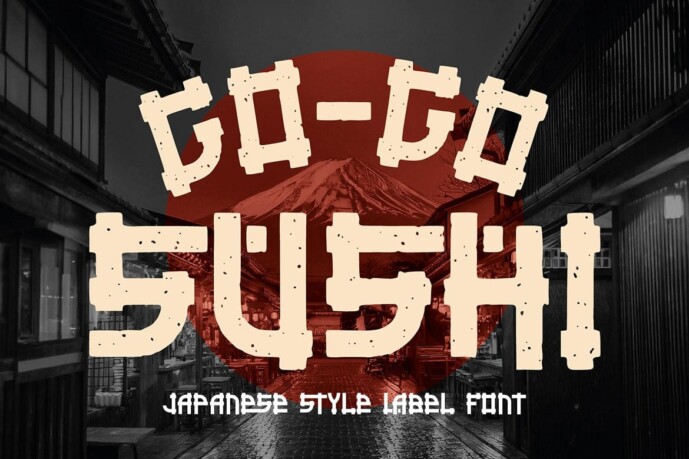
Japanese Go Go Sushi Label Font
Designer: cruzine
Unique, Japanese, bold, retro, ligature, monogram and label sans font. Comes with multilingual support and many ligatures + 2 font versions, ideal for your new logo, monogram or branding project.